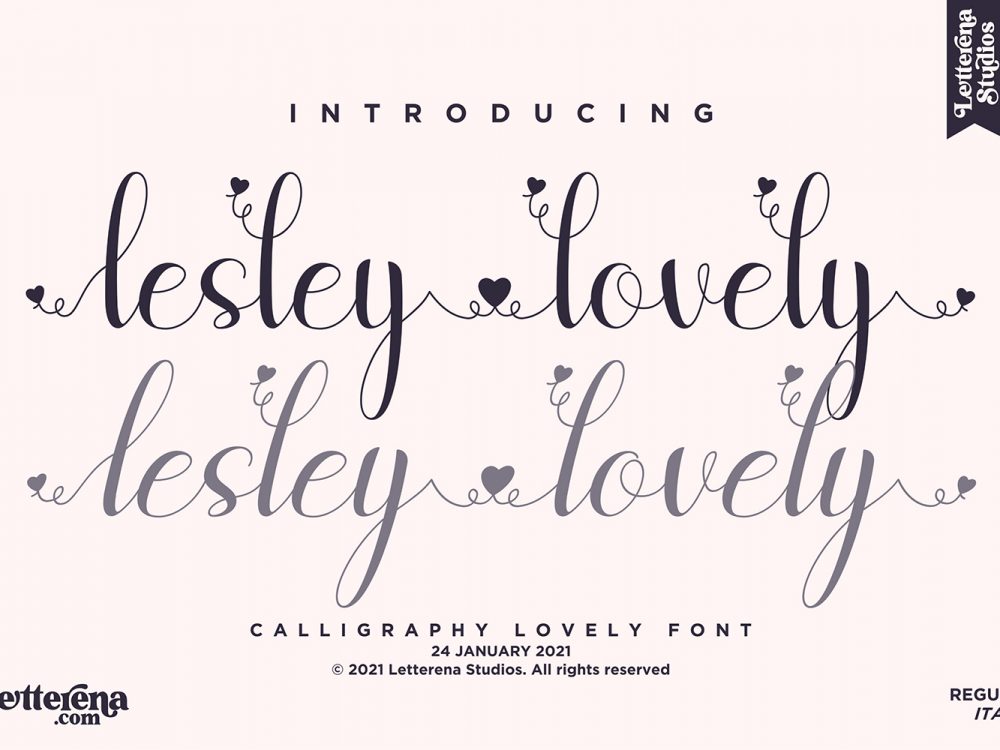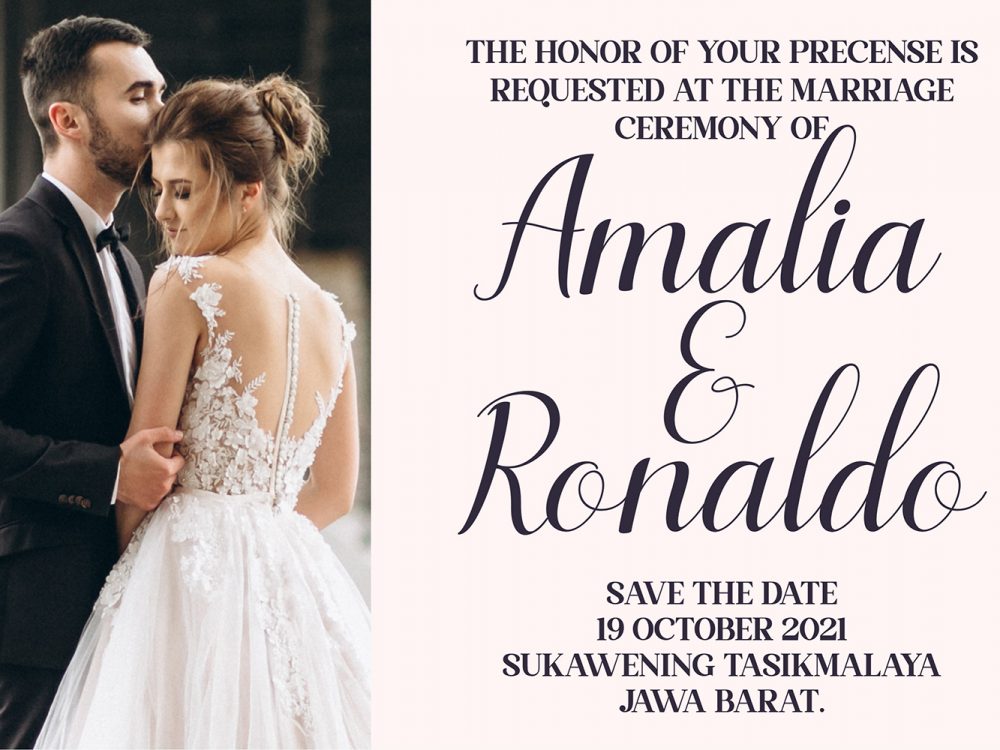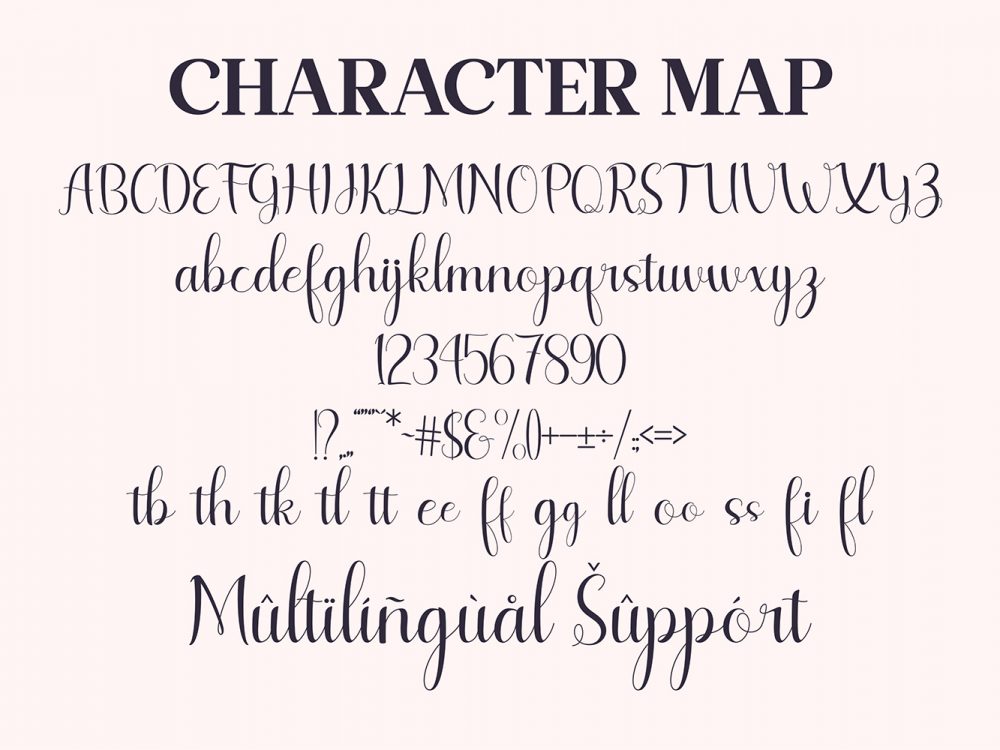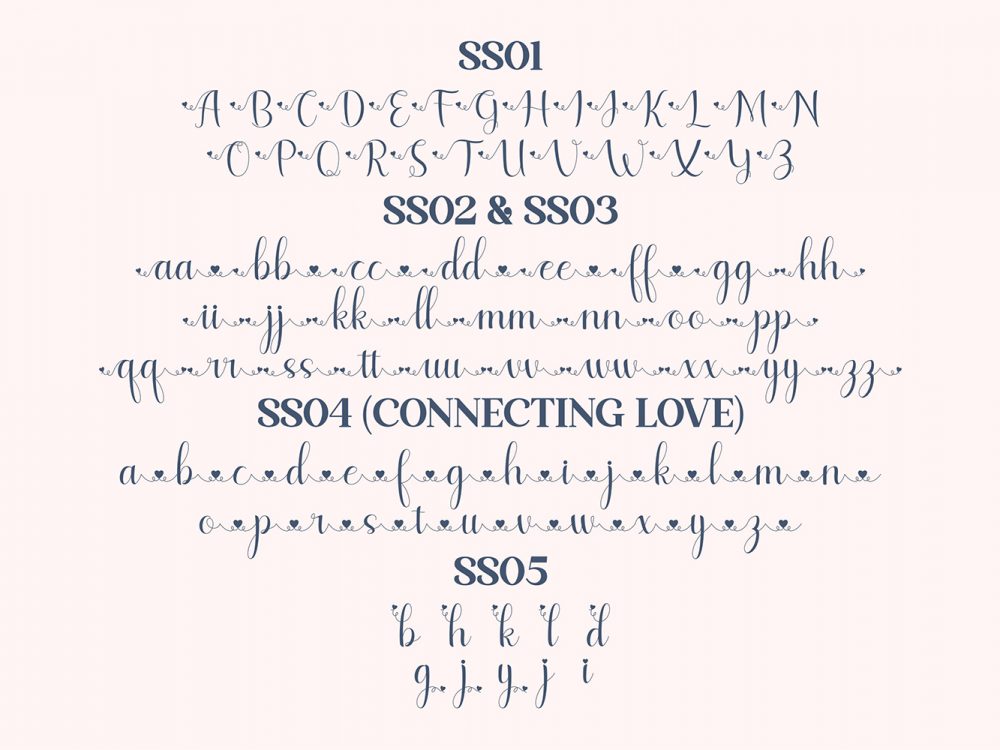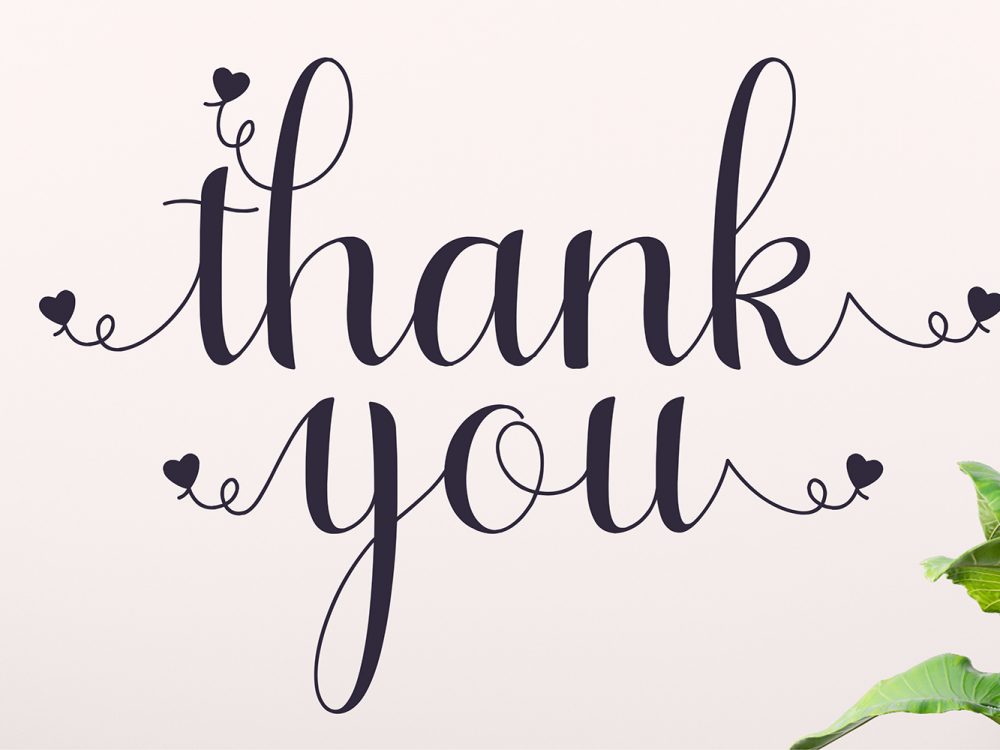
Lesley Lovely Free Font
Lesley Lovely Free Font is an interesting elegant handwritten font that features a modern calligraphic style among other fonts. This font is very well suited for various projects that require a scripted modern curly handwritten font. Use this font to create memorable romantic posters, wedding invitations, greeting cards, branding, flyers, t-shirt and pillow prints, and more. If you like it don’t forget to check out the full version.